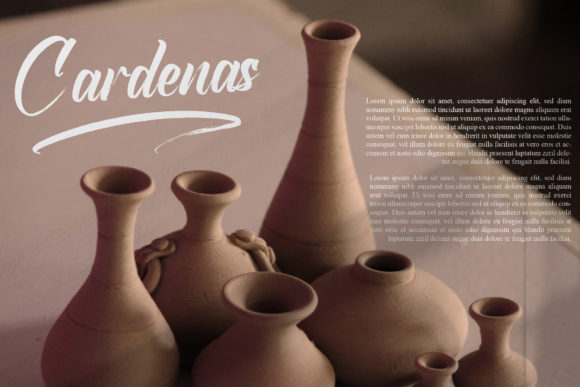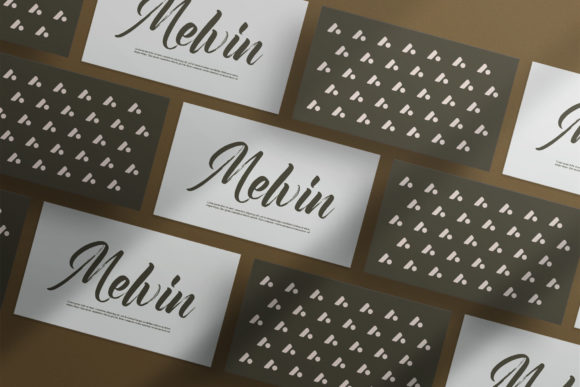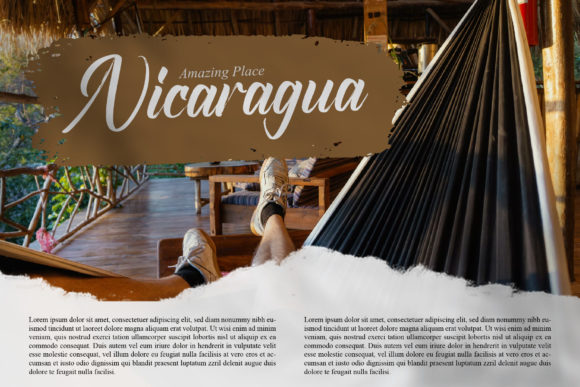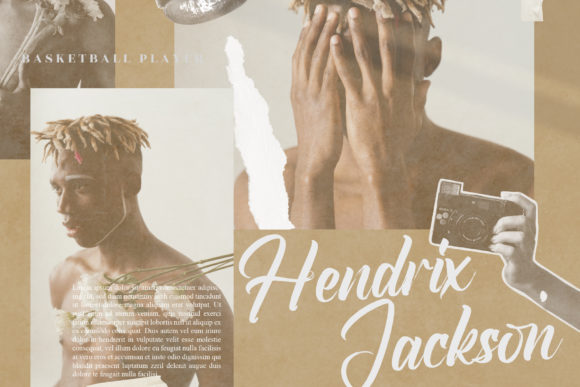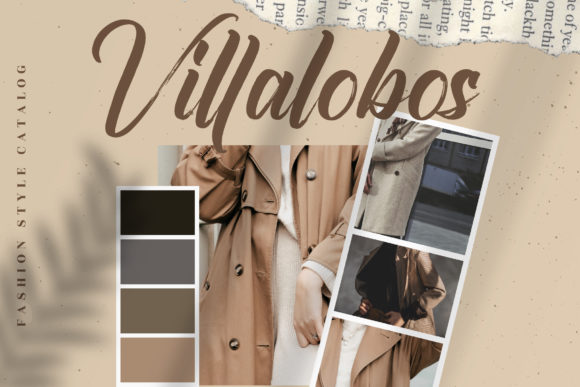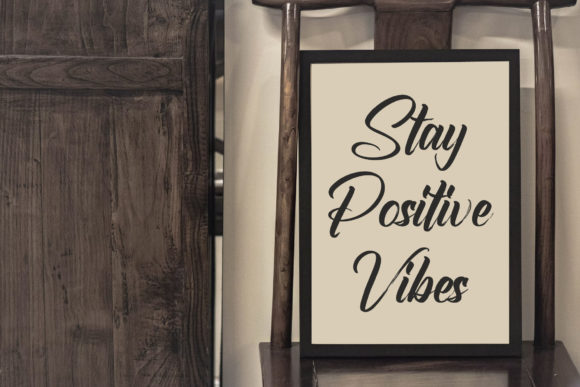
Introduction to Brushtime Logotype Font
Brushtime Logotype is an elegant script font with a contemporary atmosphere and impeccable form, inspired by timeless classic calligraphy.
Key Features of Brushtime Logotype Font
Why Choose Brushtime Logotype Font?
Brushtime Logotype Font offers exceptional quality and versatility, making it a valuable addition to your design toolkit. Whether you’re creating for personal projects or commercial use, Brushtime Logotype Font delivers professional results.